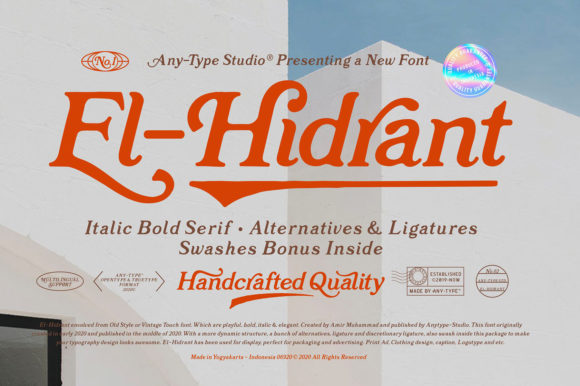
Introducing El-Hidrant Font: A Vintage Styled and Unique Serif Font
Are you looking for a font that can elevate your creative projects to new heights? Look no further than El-Hidrant Font, a vintage styled and unique serif font that is sure to become a true favorite among designers and creatives. In this article, we’ll take a closer look at El-Hidrant Font, its features, and how it can help you bring your creative ideas to life.
What is El-Hidrant Font?
El-Hidrant Font is a carefully crafted serif font that boasts a unique and vintage style. Its masterful design makes it perfect for a wide range of creative projects, from branding and advertising to packaging and publishing. With its distinctive character and elegant lines, El-Hidrant Font is sure to make your designs stand out from the crowd.
Key Features of El-Hidrant Font
- Unique Serif Design: El-Hidrant Font features a distinctive serif design that sets it apart from other fonts.
- Vintage Style: The font’s vintage style gives it a classic and timeless look that is perfect for a wide range of creative projects.
- Elegant Lines: The font’s elegant lines and curves make it perfect for designs that require a touch of sophistication.
- Highly Versatile: El-Hidrant Font is highly versatile and can be used for a wide range of creative projects, from branding and advertising to packaging and publishing.
Why Choose El-Hidrant Font?
So why choose El-Hidrant Font for your creative projects? Here are just a few reasons:
- Stand Out from the Crowd: With its unique and vintage style, El-Hidrant Font is sure to make your designs stand out from the crowd.
- Elegance and Sophistication: The font’s elegant lines and curves add a touch of sophistication to any design.
- High Quality: El-Hidrant Font is a high-quality font that is designed to deliver exceptional results.
- Easy to Use: The font is easy to use and can be easily integrated into your design workflow.
How to Use El-Hidrant Font
Using El-Hidrant Font is easy. Here are a few tips to get you started:
- Pair it with Other Fonts: El-Hidrant Font pairs well with other fonts, making it easy to create unique and interesting typography.
- Experiment with Different Sizes: The font looks great in a variety of sizes, from large headings to smaller body text.
- Use it for Branding and Advertising: El-Hidrant Font is perfect for branding and advertising projects, where its unique style and elegance can help to make your designs stand out.
Tips and Tricks for Getting the Most out of El-Hidrant Font
Here are a few tips and tricks for getting the most out of El-Hidrant Font:
- Use it for Headings and Titles: El-Hidrant Font is perfect for headings and titles, where its unique style and elegance can help to make your designs stand out.
- Experiment with Different Colors: The font looks great in a variety of colors, so don’t be afraid to experiment and find the perfect color for your design.
- Use it for Packaging and Publishing: El-Hidrant Font is also perfect for packaging and publishing projects, where its elegance and sophistication can help to make your designs look professional and high-end.
In conclusion, El-Hidrant Font is a unique and vintage styled serif font that is sure to become a true favorite among designers and creatives. Its masterful design, elegant lines, and highly versatile nature make it perfect for a wide range of creative projects. Whether you’re looking to create a brand, advertise a product, or design a publication, El-Hidrant Font is the perfect choice.